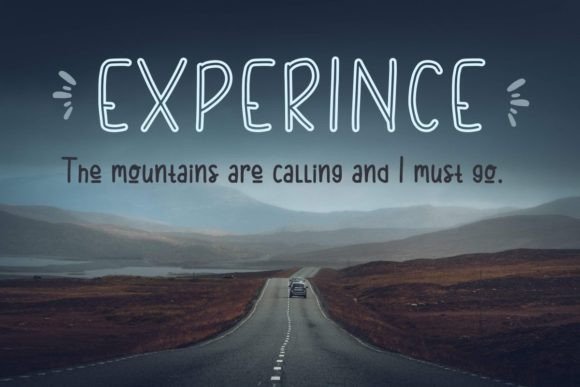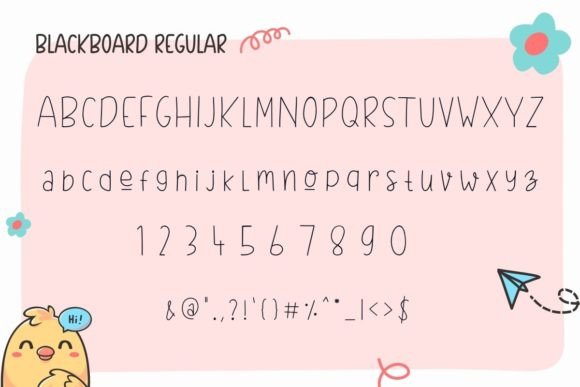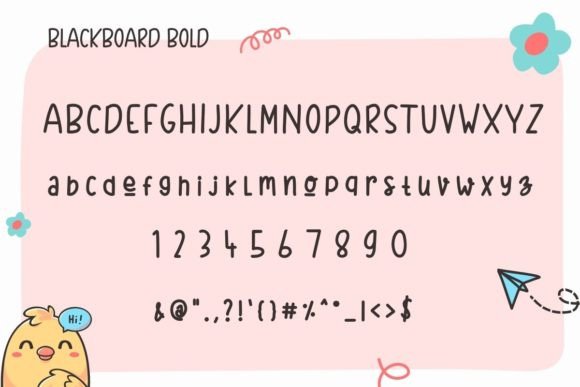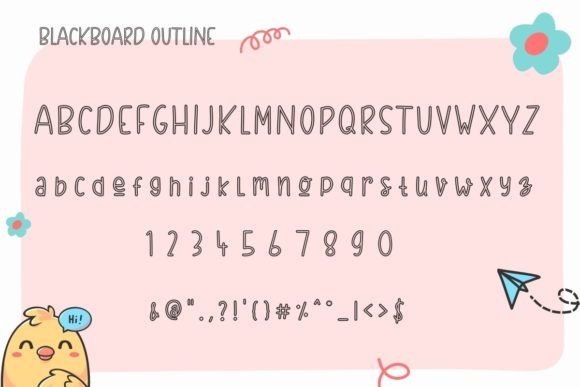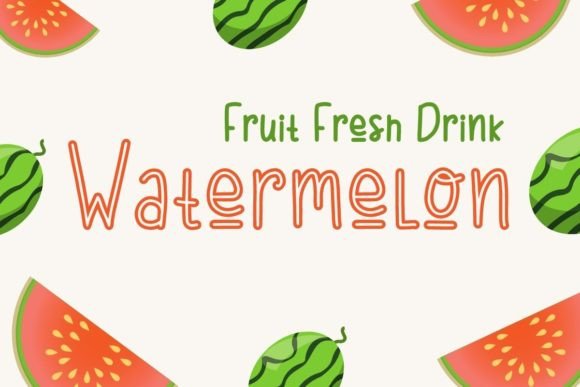
Discover the Fun and Casual Charm of Blackboard Font
Are you a designer or crafter looking for a font that can add a touch of playfulness and informality to your projects? Look no further than Blackboard Font, a fun and casual sans serif font that’s perfect for a wide range of design ideas. In this article, we’ll explore the features and benefits of Blackboard Font, and show you how to make the most of this versatile and charming font.
What is Blackboard Font?
Blackboard Font is a sans serif font that’s designed to mimic the look of chalkboard writing. It’s a casual and laid-back font that’s perfect for creating designs that need a friendly and approachable feel. With its smooth lines and rounded edges, Blackboard Font is a great choice for designers who want to add a touch of whimsy and personality to their work.
Key Features of Blackboard Font
So what makes Blackboard Font so special? Here are some of its key features:
• Fun and casual design: Blackboard Font has a playful and informal design that’s perfect for creating designs that need a lighthearted and carefree feel.
• Sans serif design: Blackboard Font is a sans serif font, which means it doesn’t have any decorative flourishes or lines.
• Rounded edges: The rounded edges of Blackboard Font give it a smooth and friendly feel that’s perfect for designs that need a approachable and welcoming vibe.
• Highly legible: Despite its casual design, Blackboard Font is highly legible and easy to read, making it perfect for use in a wide range of design projects.
Uses for Blackboard Font
So what can you use Blackboard Font for? The possibilities are endless! Here are some ideas to get you started:
• Signs and posters: Blackboard Font is perfect for creating eye-catching signs and posters that need a fun and casual vibe.
• Social media graphics: Use Blackboard Font to create engaging social media graphics that need a friendly and approachable feel.
• Crafting projects: Blackboard Font is a great choice for crafters who want to add a personal touch to their projects, such as handmade cards, gift tags, and scrapbook pages.
• Branding and packaging: Blackboard Font can be used to create unique and memorable branding and packaging designs that need a playful and informal feel.
Tips for Using Blackboard Font
Here are some tips for getting the most out of Blackboard Font:
• Use it with a playful color scheme: Blackboard Font looks great with bright and bold colors, so don’t be afraid to experiment with different color schemes.
• Mix it with other fonts: Blackboard Font can be paired with other fonts to create a unique and interesting design.
• Experiment with different sizes: Blackboard Font can be used at a variety of sizes, from small and delicate to large and bold.
Font Name Blackboard Font
Author AnningArts
Blackboard Font is a fun and casual sans serif font that’s perfect for designers and crafters who want to add a touch of playfulness and informality to their projects. With its smooth lines, rounded edges, and highly legible design, Blackboard Font is a versatile and charming font that’s sure to inspire your creativity. Whether you’re creating signs and posters, social media graphics, crafting projects, or branding and packaging designs, Blackboard Font is a great choice. So why not give it a try and see what amazing designs you can create?